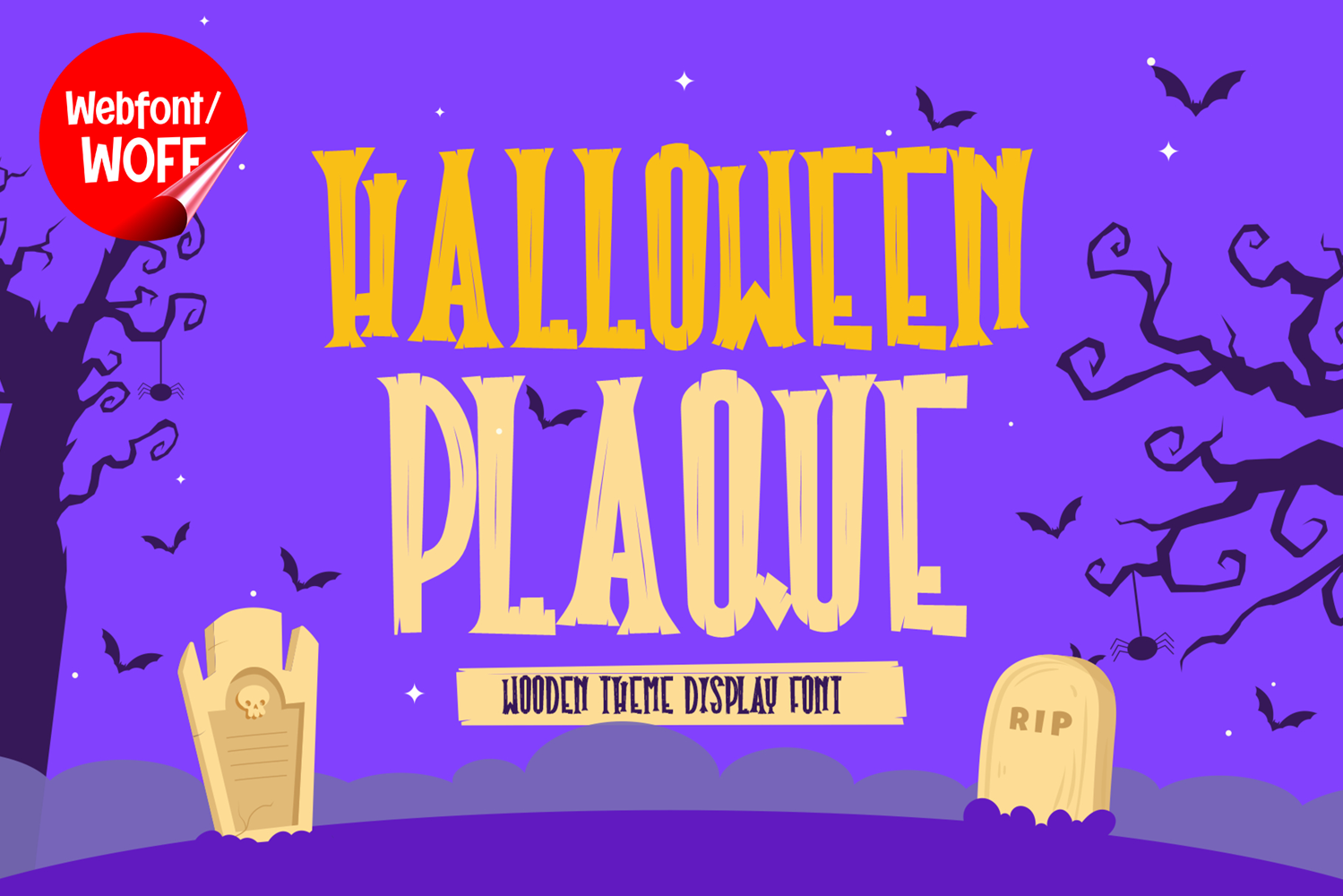
Halloween Plaque Webfont brings a creepy and playful Halloween style to websites and digital interfaces. Its distinctive display lettering is ideal for Halloween landing pages, event websites, banners, headings, promotional graphics, blogs, and other spooky digital projects.